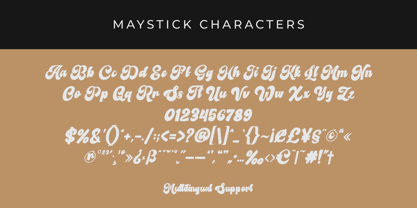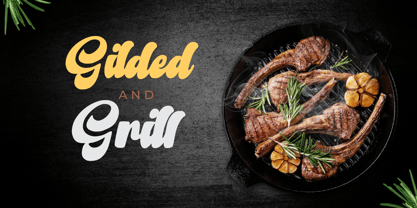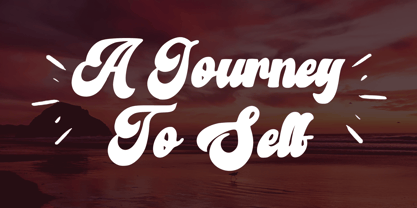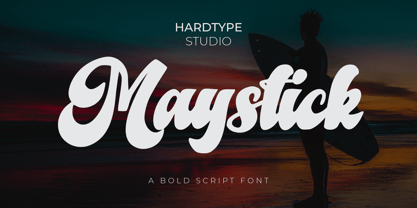
Maystick
by HardType
The Maystick Font Family was designed by and published by HardType. Maystick contains 2 styles and family package options. More about this family
Maystick is a bold script typeface from HardType that blends strength with smooth elegance. Designed for high-impact branding, logos, and headlines, Maystick features confident curves, dynamic strokes, and a handcrafted feel that adds personality to any design. Whether you're crafting modern packaging, stylish apparel, or eye-catching social media graphics, Maystick delivers bold expression with script-style finesse. Its versatility and charm make it a standout choice for creatives who want their typography to speak with energy and style.